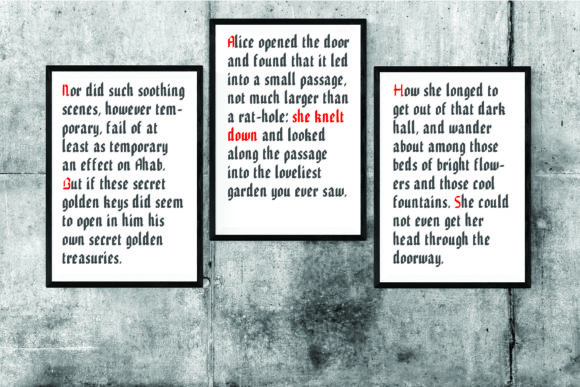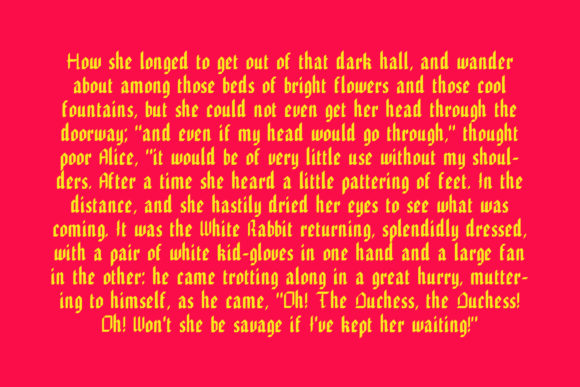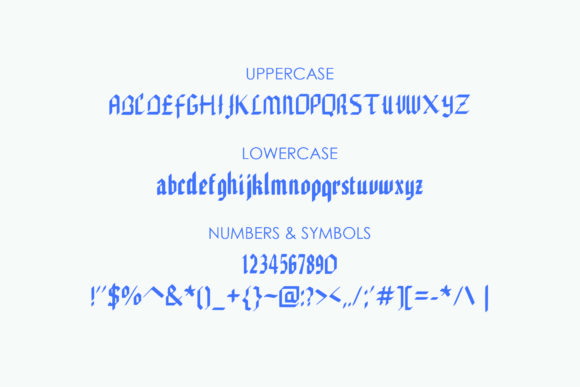
Introducing Edgar Font: A Stunning Blackletter Font with Old-Time Charm
In the world of typography, few fonts evoke the same sense of nostalgia and elegance as blackletter fonts. Among these, Edgar font stands out as a stunning example of a blackletter font with a unique twist. With its intricate details and old-time charm, Edgar is sure to inspire designers and crafters alike.
The Story Behind Edgar Font
Edgar font is a carefully crafted blackletter font that draws inspiration from traditional calligraphy and lettering techniques. Its design is rooted in the rich history of blackletter typography, which dates back to the Middle Ages. However, Edgar’s creators have added a modern spin to this classic style, resulting in a font that is both nostalgic and fresh.
What Makes Edgar Font So Special?
So, what sets Edgar font apart from other blackletter fonts? Here are a few key features that make it truly unique:
- Intricate Details: Edgar font boasts intricate details and ornate flourishes, making it perfect for use in high-end designs, such as luxury branding, packaging, and editorial projects.
- Unique Twist: Unlike traditional blackletter fonts, Edgar features a distinctive twist that gives it a modern edge. This makes it ideal for designers looking to add a touch of sophistication to their work.
- Old-Time Charm: Edgar font’s old-time charm is undeniable. Its classic design and elegant lines evoke a sense of nostalgia and timelessness, making it perfect for use in projects that require a vintage or retro aesthetic.
Using Edgar Font in Your Designs
Edgar font is incredibly versatile and can be used in a wide range of design projects, including:
- Branding and Logo Design: Edgar font’s unique blend of elegance and sophistication makes it perfect for use in branding and logo design. Use it to create a lasting impression on your clients and customers.
- Packaging Design: Add a touch of luxury to your packaging designs with Edgar font. Its intricate details and ornate flourishes make it perfect for use on high-end product packaging.
- Editorial Design: Edgar font is also ideal for use in editorial projects, such as magazines, newspapers, and books. Its classic design and elegant lines make it perfect for use in headings, titles, and other display text.
Tips for Working with Edgar Font
Here are a few tips for working with Edgar font:
- Use it Sparingly: Due to its intricate details and ornate flourishes, Edgar font works best when used sparingly. Use it for headings, titles, and other display text to add a touch of elegance to your designs.
- Experiment with Pairings: Edgar font pairs well with a wide range of other fonts. Experiment with different pairings to find the perfect combination for your design.
- Pay Attention to Kerning: As with any font, kerning is essential when working with Edgar font. Pay close attention to the spacing between letters to ensure that your text looks professional and polished.
In conclusion, Edgar font is a stunning blackletter font with a unique twist. Its intricate details, old-time charm, and modern edge make it perfect for use in a wide range of design projects. Whether you’re a designer, crafter, or simply someone who appreciates beautiful typography, Edgar font is sure to inspire. So why not give it a try and see what amazing designs you can create?
- Edgar font is a stunning blackletter font with a unique twist.
- Its intricate details and old-time charm make it perfect for use in high-end designs.
- Edgar font is versatile and can be used in a wide range of design projects, including branding, packaging, and editorial design.